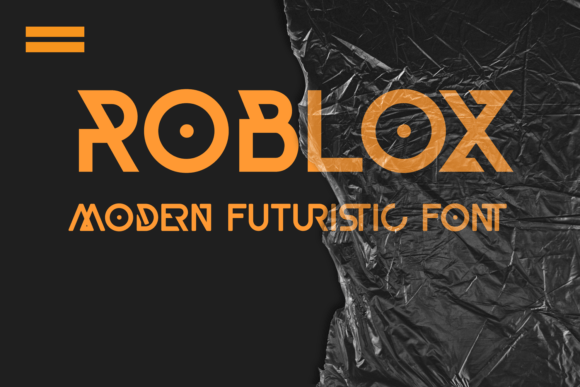
**Introducing Roblox Font: The Ultimate Font for Making Your Creations Stand Out**
Immerse yourself in the world of Roblox, where creativity and fun collide. Introducing Roblox Font, an exceptional font that will take your designs to soaring heights. With its sleek geometric structure, this font exudes a modern and striking appeal that is sure to captivate your audience.
Roblox Font is effortlessly versatile, lending itself to a myriad of projects. Whether you're crafting eye-catching headlines, engaging social media posts, or captivating branding materials, this font will elevate your creations with an air of sophistication and style. Unleash your imagination and embark on a design journey that knows no bounds.
At its core, Roblox Font embodies the spirit of playfulness and creativity. Its clean lines and sharp angles dance across the page, inviting you to explore a world of endless possibilities. Imagine your words taking on a bold new life, captivating the attention of all who lay their eyes upon them.
With Roblox Font, you're not just downloading a font – you're investing in an experience. An experience that empowers you to express yourself uniquely, to craft designs that resonate with your audience, and to leave an unforgettable mark on the digital landscape.
Join the legions of satisfied users who have already discovered the magic of Roblox Font. Let your creativity soar, let your designs shine, and let Roblox Font guide you on an unforgettable journey of self-expression and captivating design.